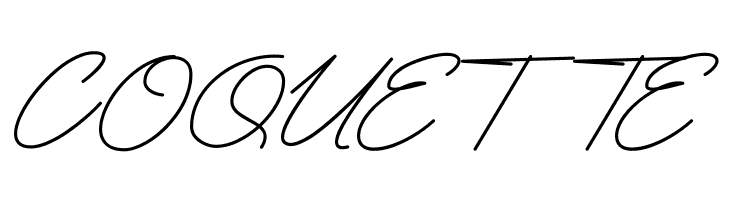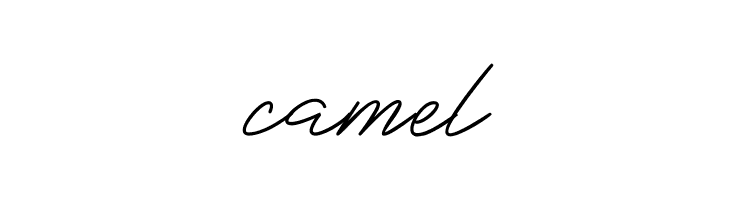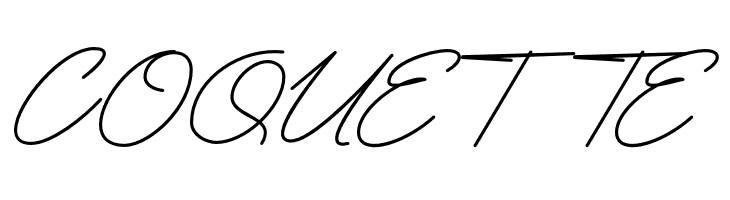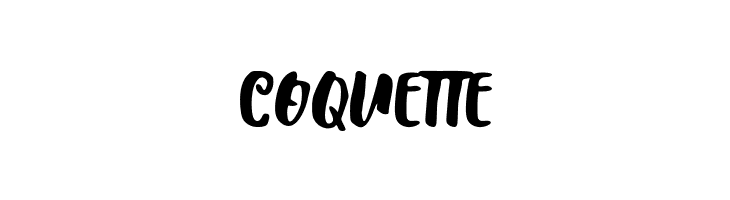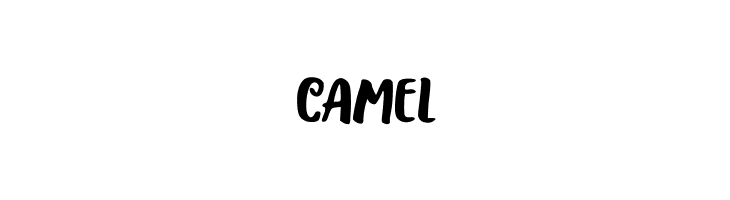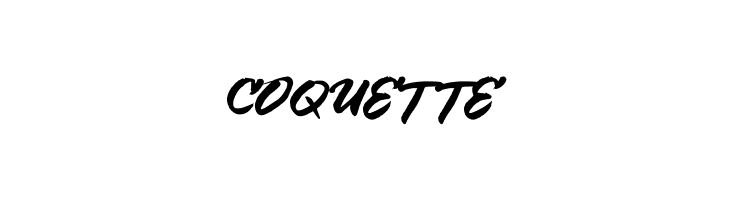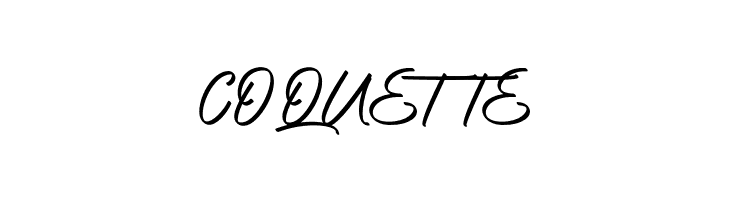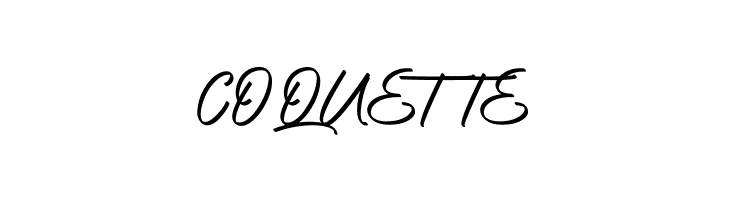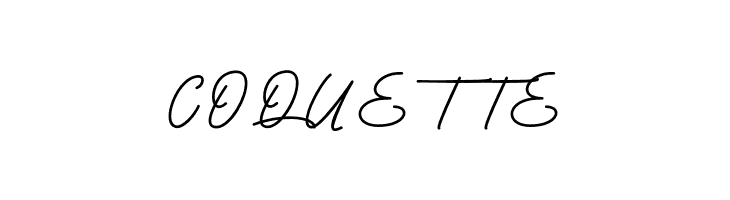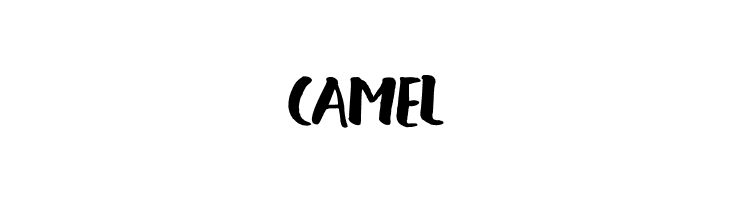
A cursive, calligraphy-inspired font with elegant loops and swashes.
An elegant, flowing script font with smooth, cursive strokes and graceful curves.
A bold, playful handwritten font with a casual and friendly vibe.
A flowing, cursive script font with elegant, connected strokes.
A graceful script font with fluid, cursive strokes and elegant loops.
A bold, dynamic brush script font with flowing strokes and a hand-painted look.
A bold, expressive handwritten font with dynamic curves and a playful feel.
A sophisticated script font with elegant, flowing cursive strokes.
A flowing, cursive script font with elegant, slanted characters.
A bold, dynamic script font with fluid, connected strokes and a modern artistic style.